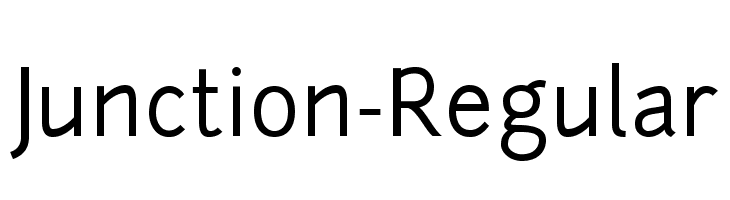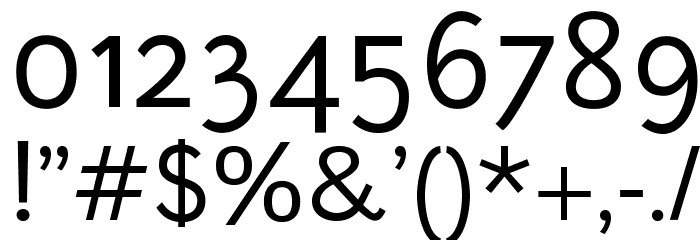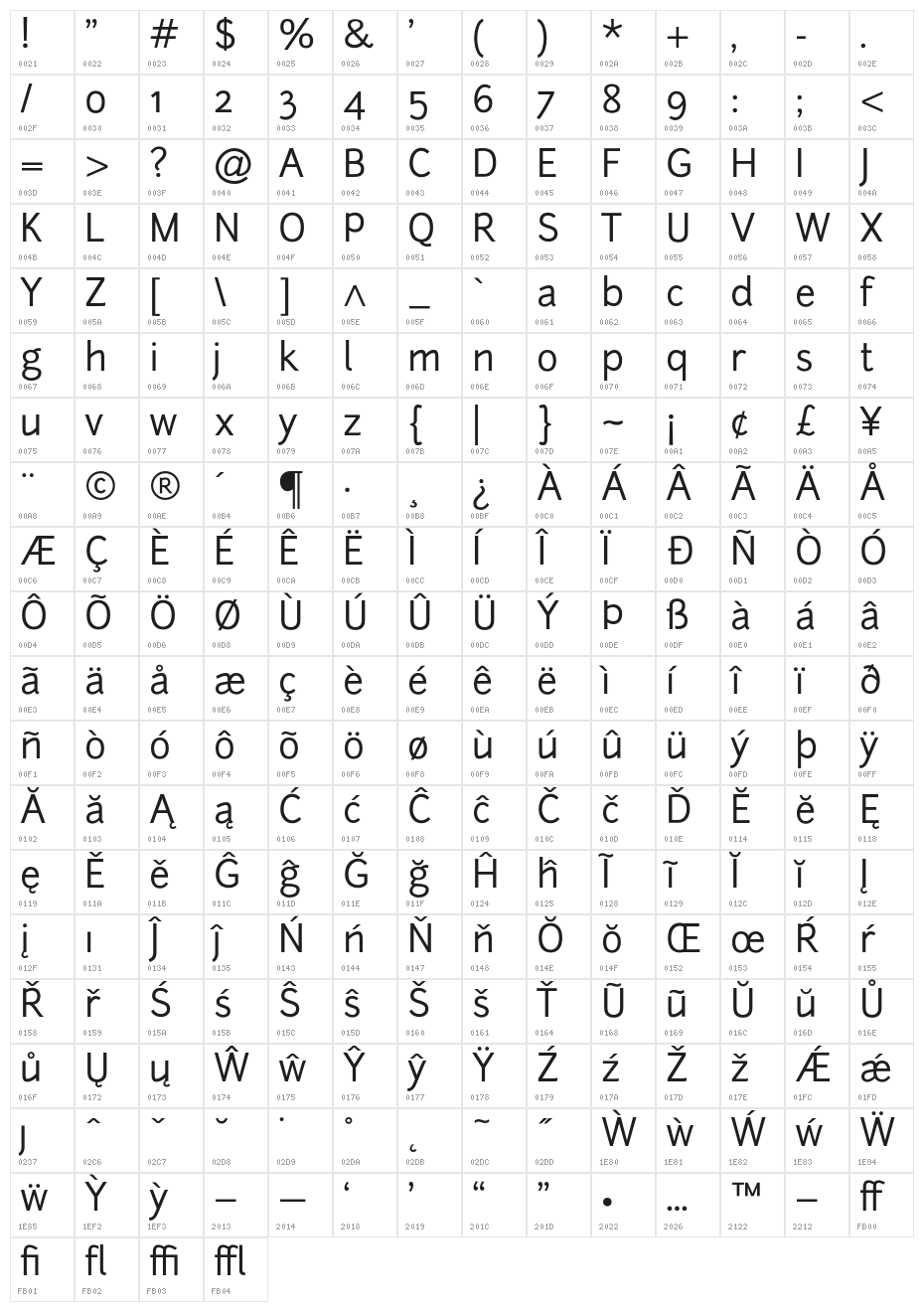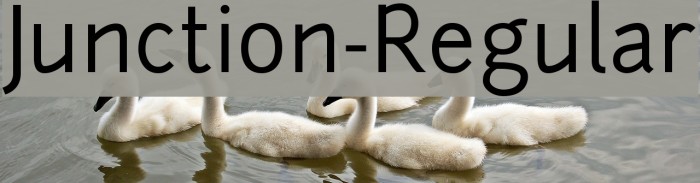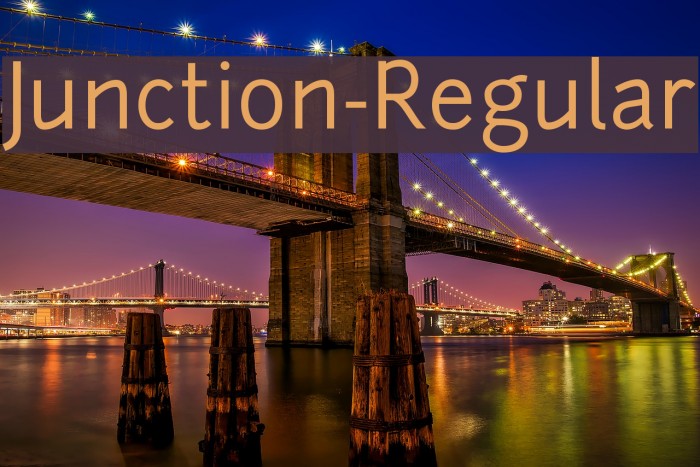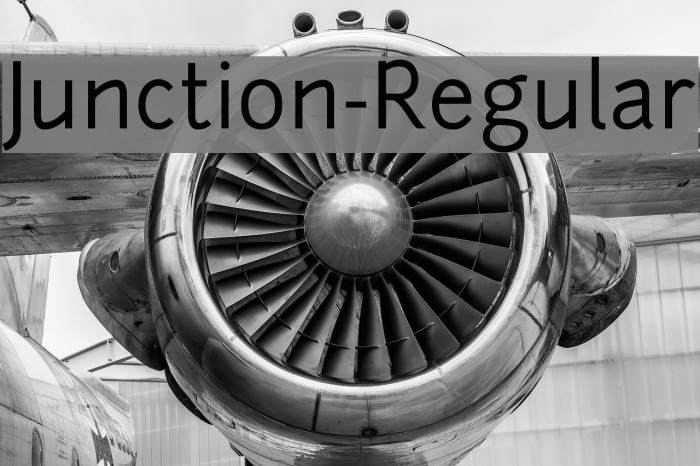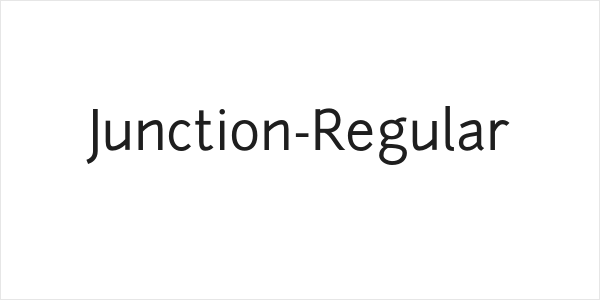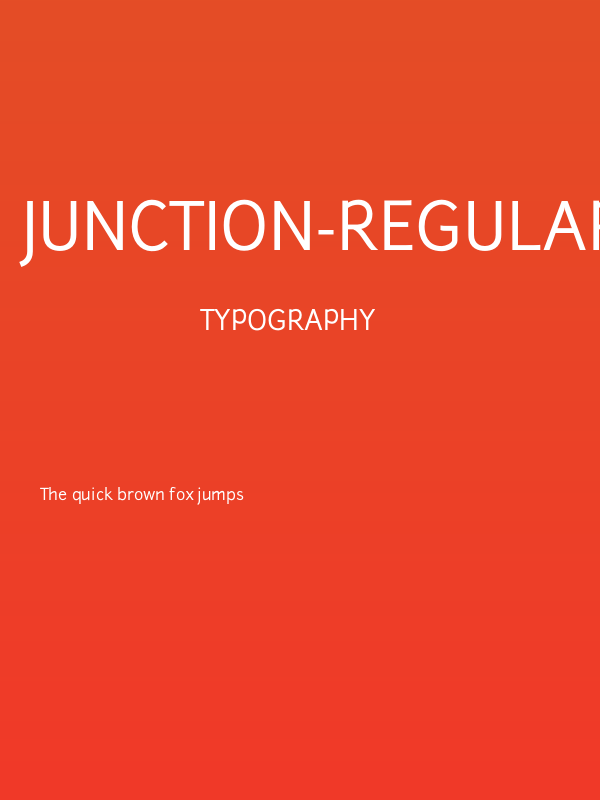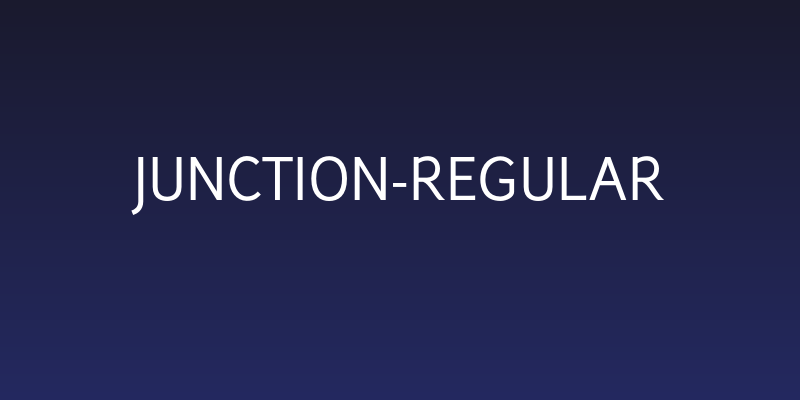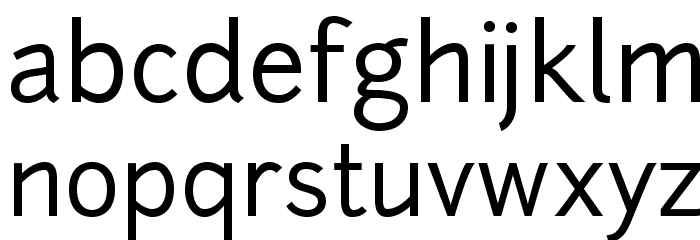
Junction-Regular Font
Junction-Regular Description
This font features a clean and modern sans-serif design with a balanced structure. The characters are well-proportioned, offering a harmonious blend of geometric and humanist elements. The uppercase letters are bold and assertive, while the lowercase letters maintain a friendly and approachable appearance. The numerals are clear and legible, making them suitable for a variety of applications. Special characters are distinct and well-integrated, ensuring versatility in design projects. The overall aesthetic is contemporary, making it ideal for digital and print media.
| Proposed Projects | Ideal for branding, web design, editorial layouts, and advertising materials. |